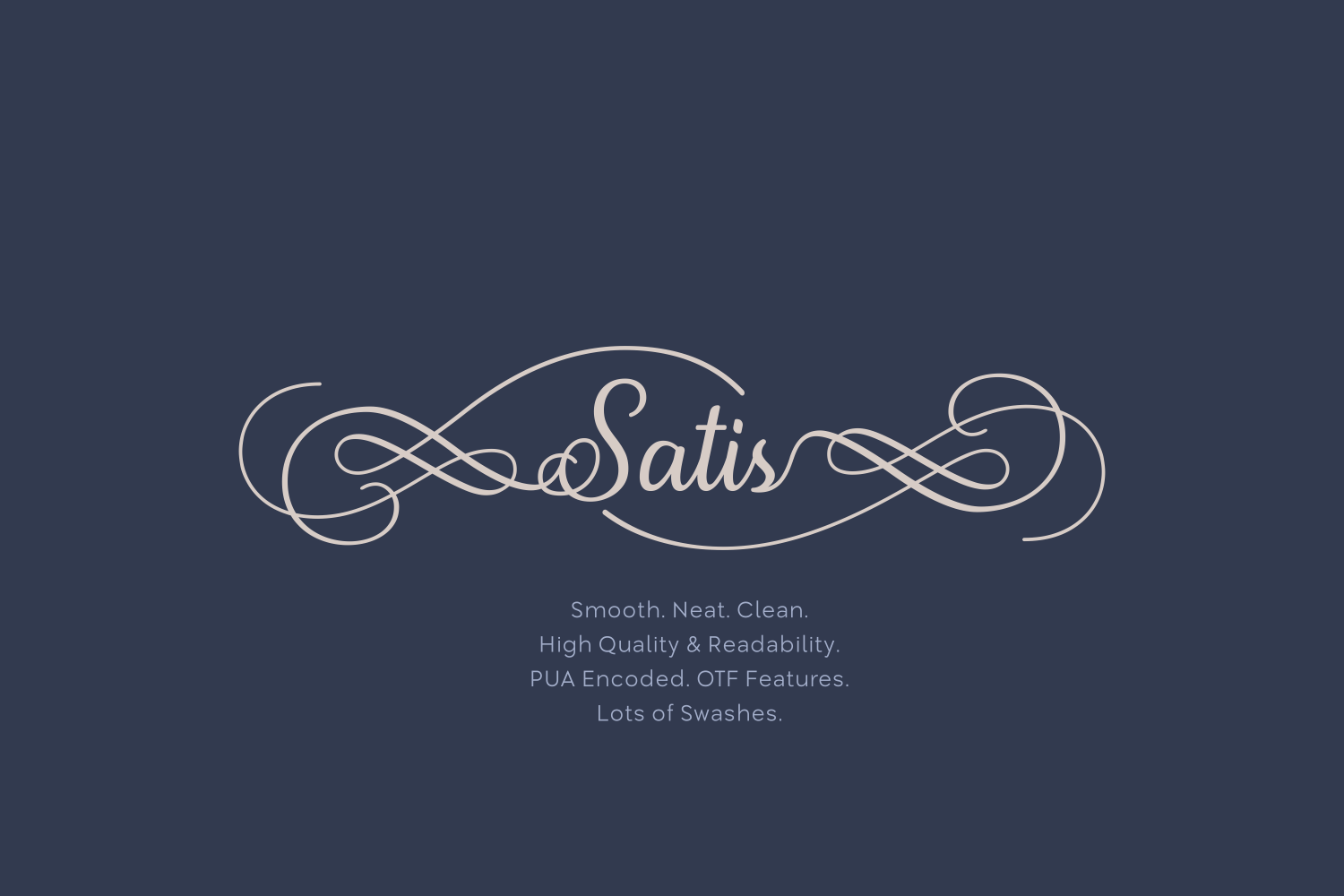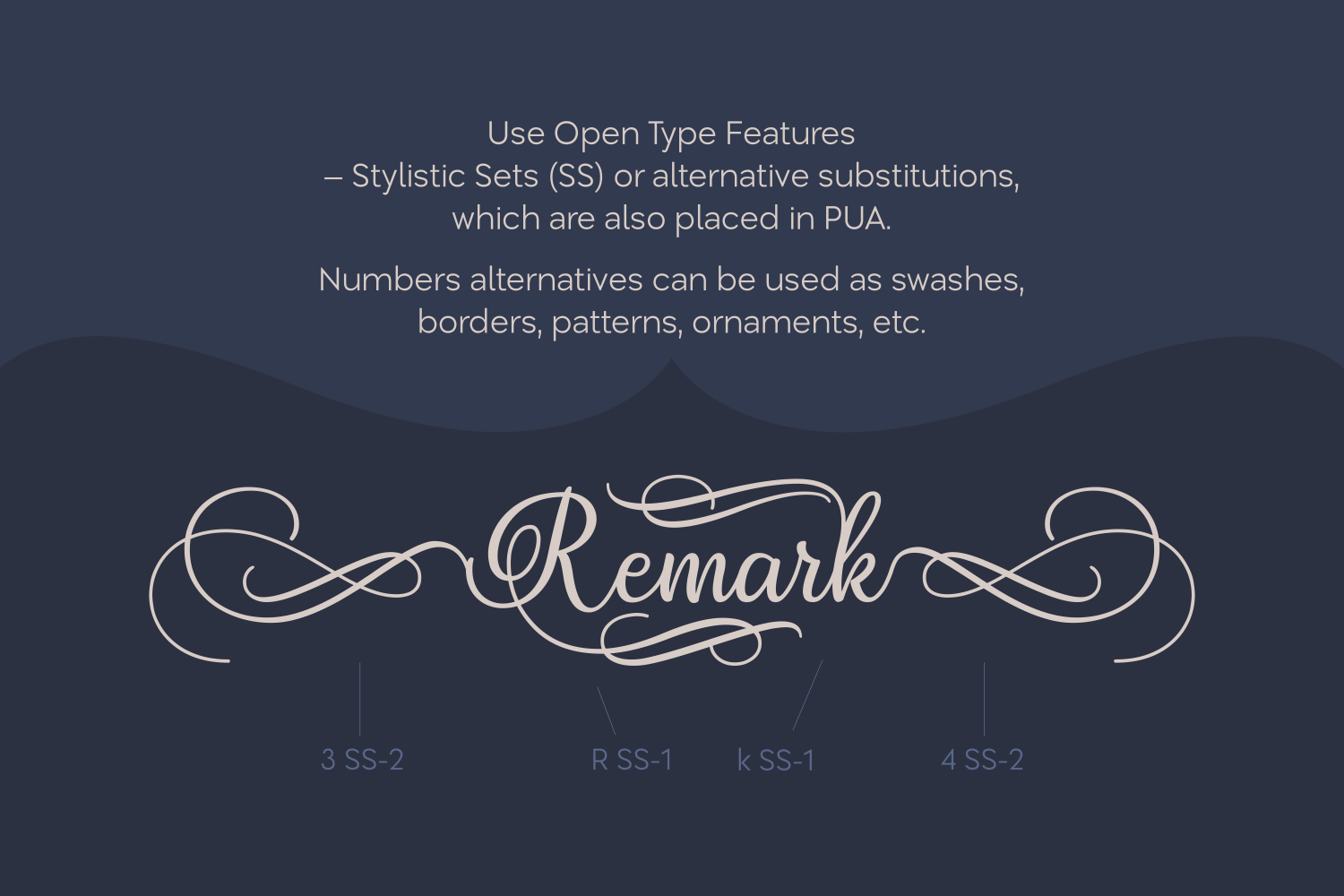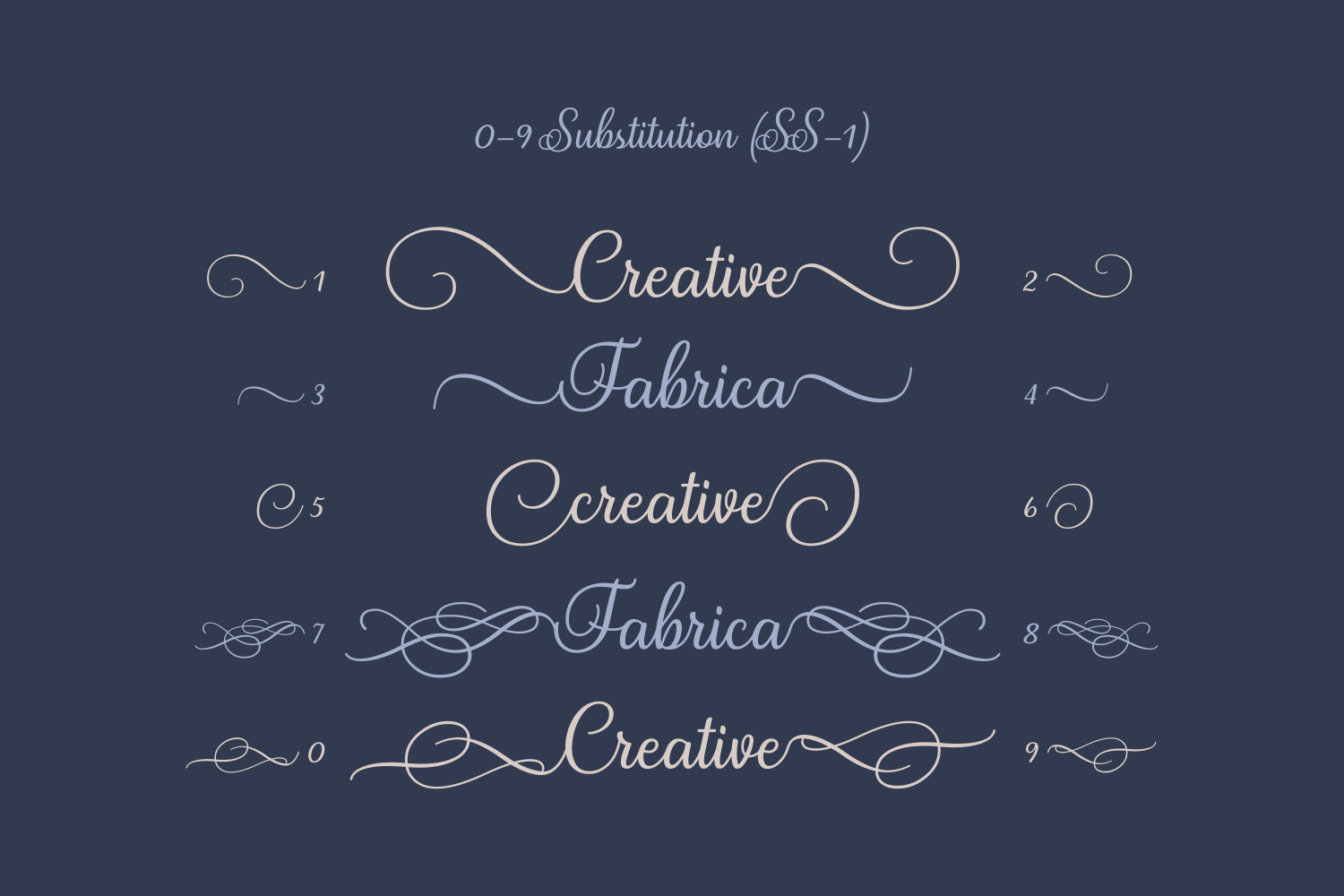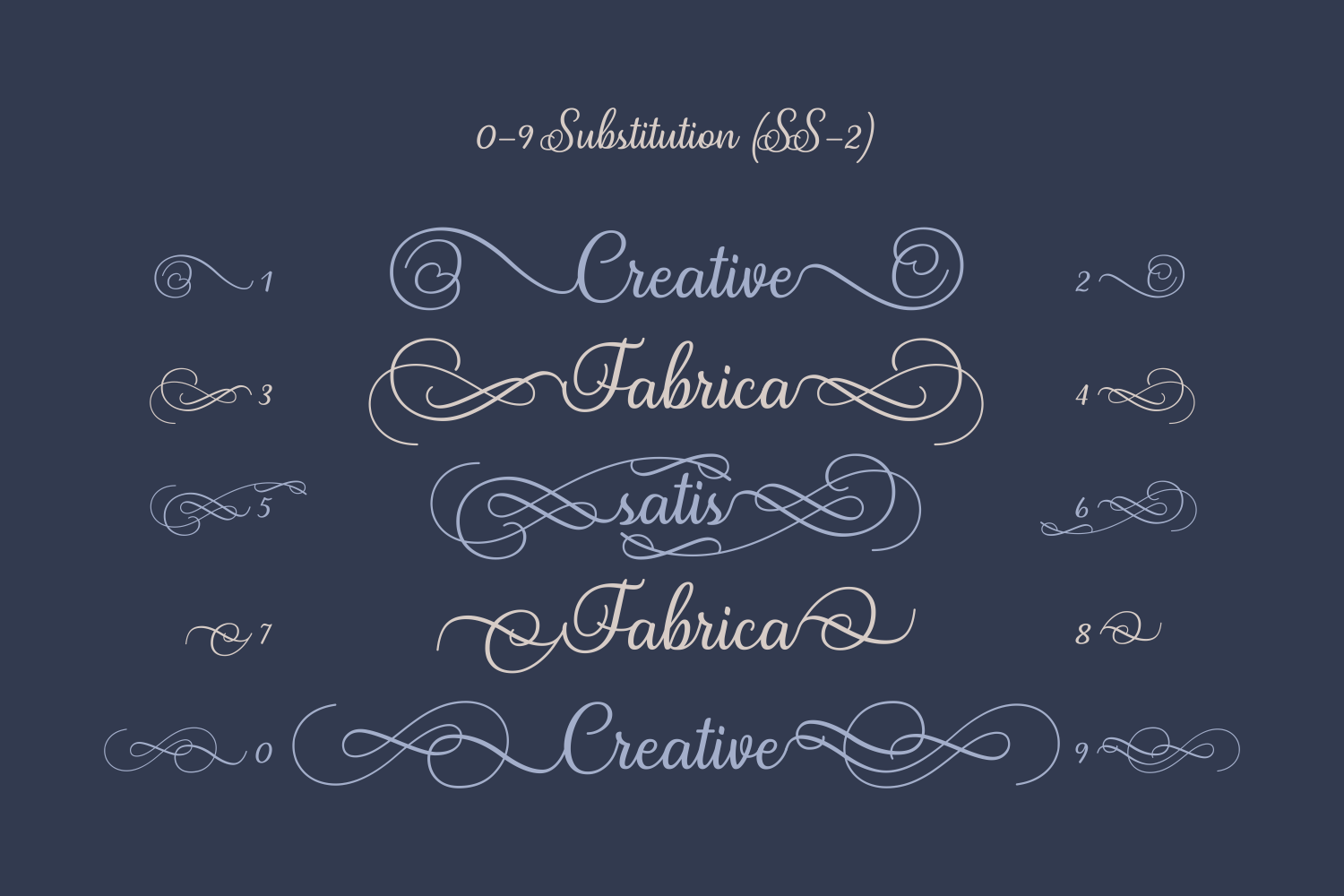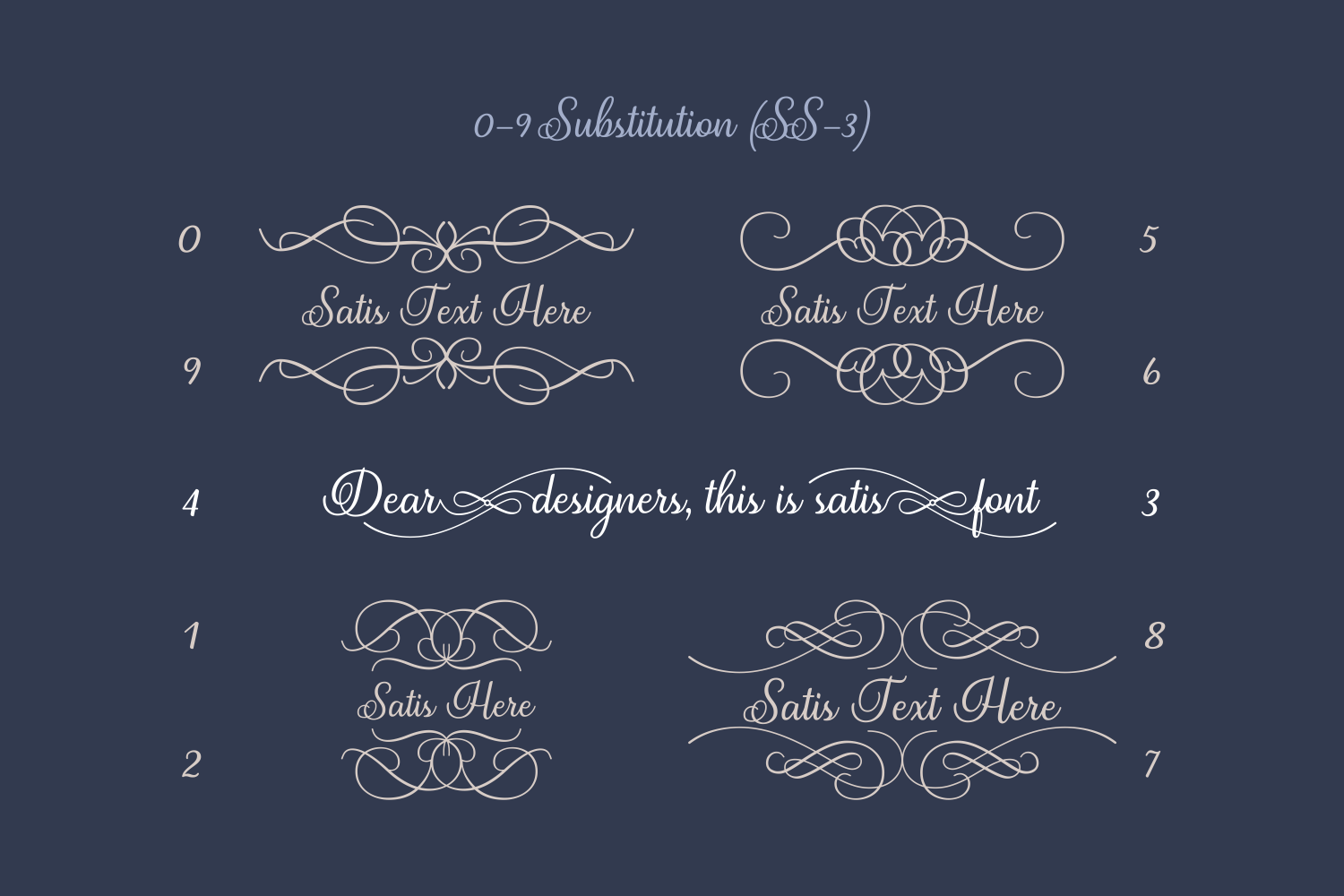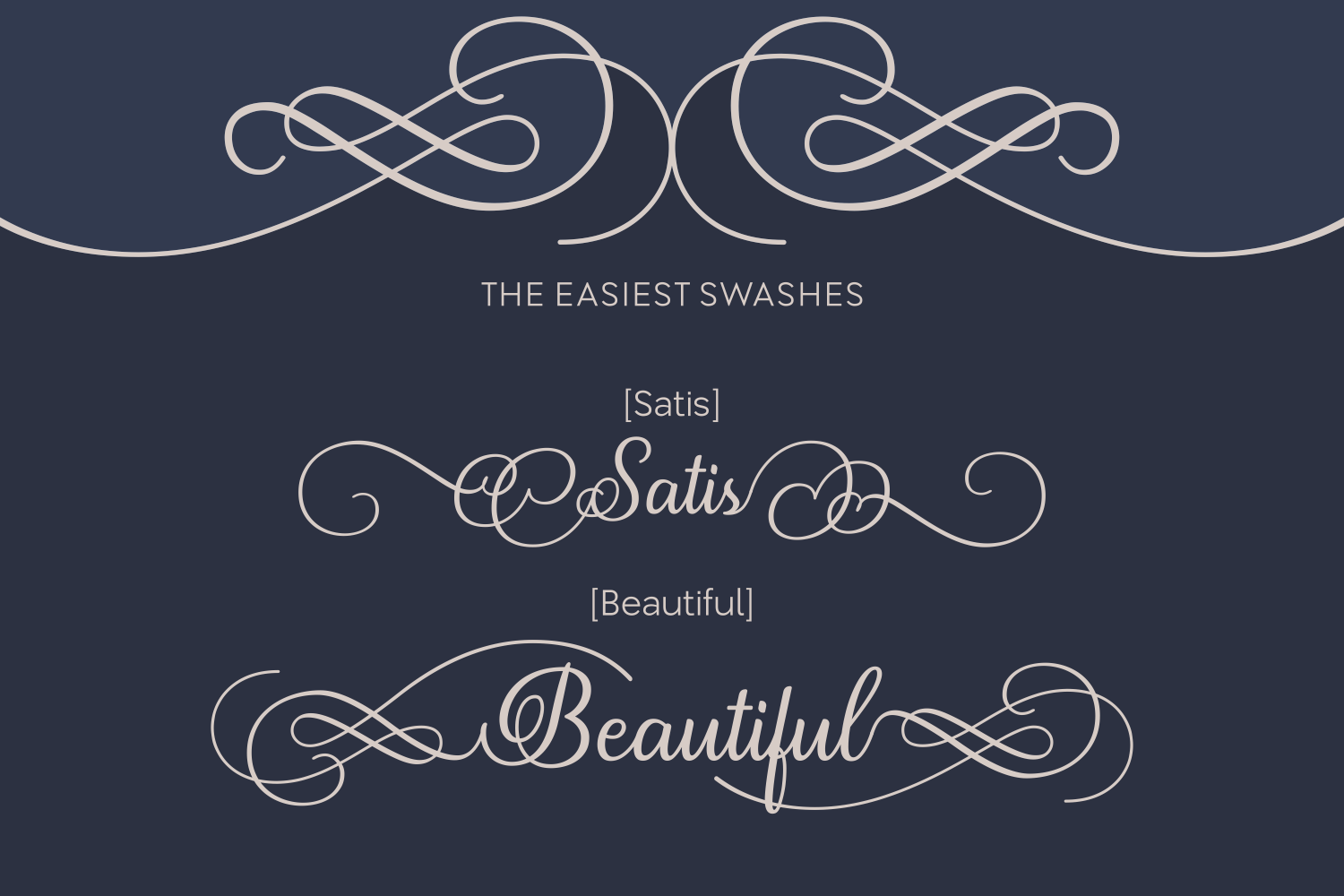
Introduction to Satis Font Font
Fonts play a crucial role in design, and the Satis Font font is a typeface that brings both character and versatility to any project. Whether you’re working on a branding project, a website, or a print design, the Satis Font font offers a unique style that can elevate your work.
Satis is an elegant script font featuring luxurious swashes.
Itβs the perfect font for decorating (formal) invites, wedding cards, branding and more The large variety of swashes make this type a flexible font that you can use over and over again.
Key Features of Satis Font Font
Why Choose Satis Font Font?
The Satis Font font is more than just a typeface β it’s a design tool that helps you communicate your message with style and clarity. Its unique character set and versatile design make it suitable for a wide range of applications, from elegant invitations to bold headlines.
With its carefully crafted letterforms and balanced proportions, the Satis Font font ensures readability and visual appeal across all mediums.
What makes Satis Font font special?
The Satis Font font stands out with its unique design, exceptional readability, and versatility across various design applications.